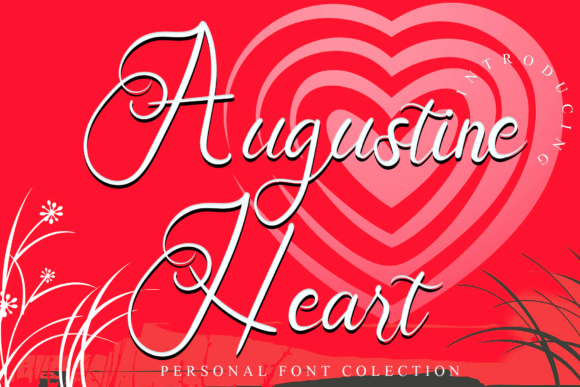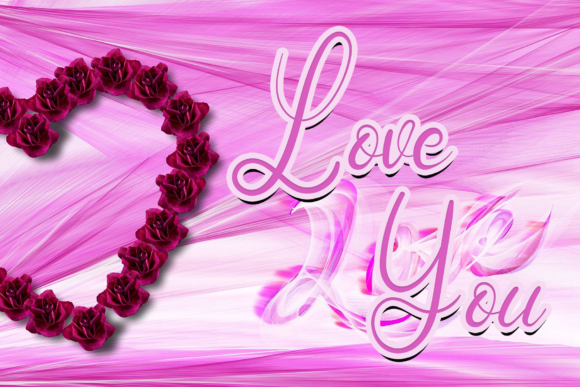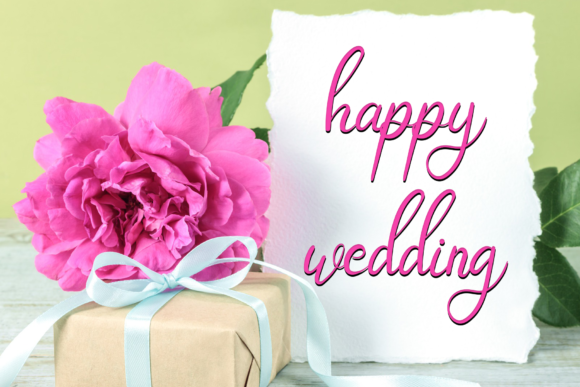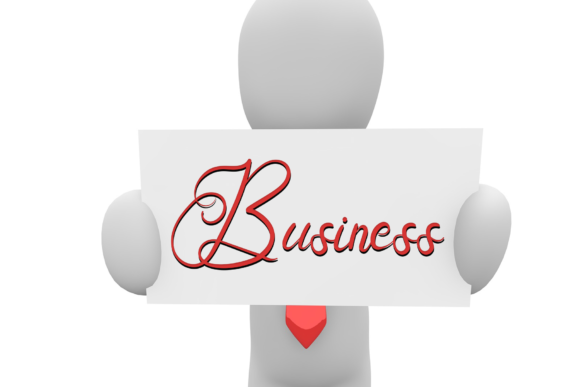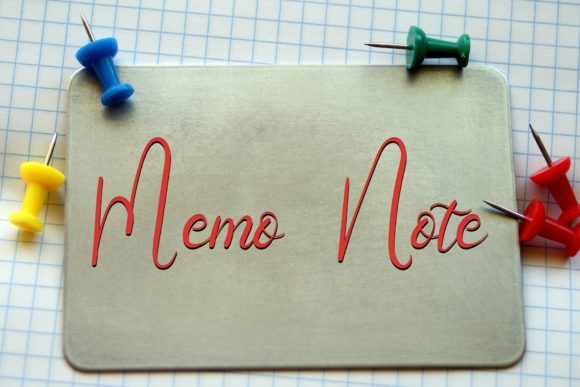
Augustine Heart Font
About Augustine Heart Font
Augustine Heart is a sweet and delicate handwritten font. Dainty and joyful, this font will be ideal for writing wedding invitations, cards or any other design that may need a romantic, personalized touch!